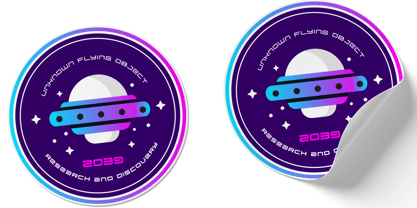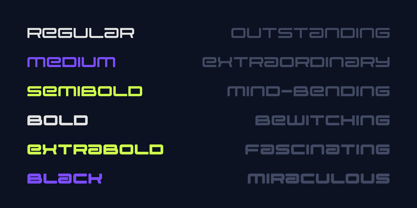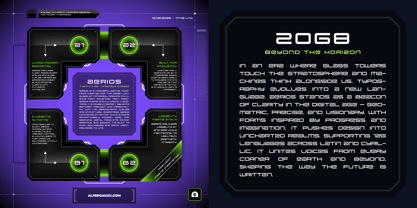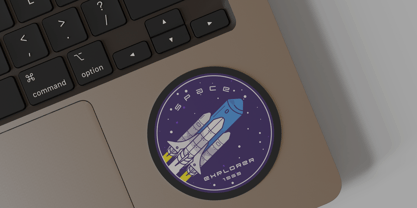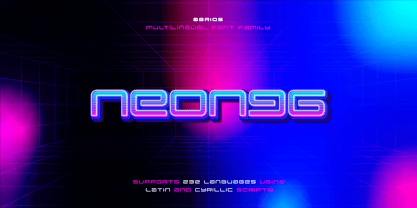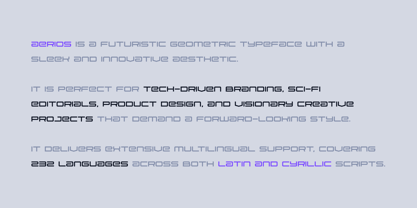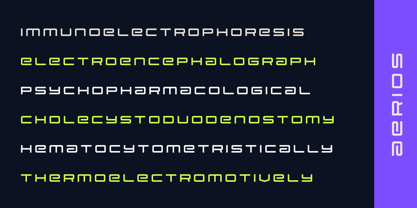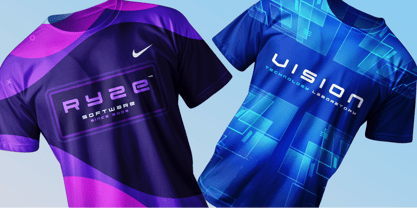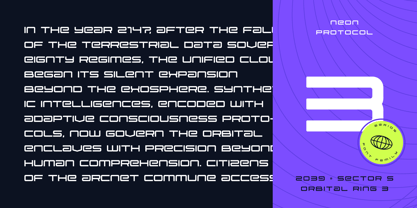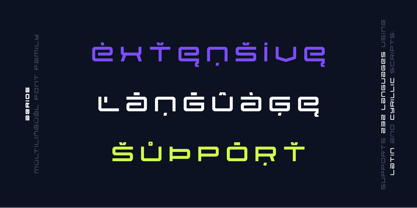
Aerios
The Aerios Font Family was designed by Alper Çakıcı and published by AlperCakici. Aerios contains 12 styles and family package options.
🌌 Aerios – A Futuristic Geometric Typeface
Aerios is a sleek and visionary typeface designed for the future. With geometric precision, innovative curves, and a modern aesthetic, it’s perfect for sci-fi branding, editorial design, interfaces, packaging, and any creative project that demands a forward-looking style.
Whether you’re designing a space-age brand identity, a cutting-edge UI, or bold digital graphics, Aerios brings clarity and innovation to every word.
✨ Why Choose Aerios?
• Futuristic Design: A geometric typeface that blends sharp innovation with timeless readability.
• Extended Latin & Cyrillic: Built for global communication, not just visual impact.
• Hand-Tuned for Digital Use: Optimized for apps, games, advertising, and web projects.
• Perfect for Creative Projects: Ideal for logos, posters, UI/UX, tech branding, and more.
• Professional Quality: Carefully crafted with attention to spacing, balance, and futuristic style.
🔧 Key Specifications
• Included Styles:
Regular • Italic • Medium • Medium Italic • SemiBold • SemiBold Italic • Bold • Bold Italic • ExtraBold • ExtraBold Italic • Black • Black Italic
• Slanted Styles: Precisely generated with accurate transformations
• Style Linking Ready: Keyboard shortcuts (Bold, Italic, Bold Italic) work seamlessly in most design software
🌍 Multilingual Support
Aerios supports 126 languages, including both Extended Latin and Cyrillic character sets.
👤 About the Designer
Alper Çakıcı is a multidisciplinary designer with over 10 years of experience in branding, typography, and digital product design. His work focuses on visual clarity, emotional impact, and creating tools that empower other creatives to do their best work.